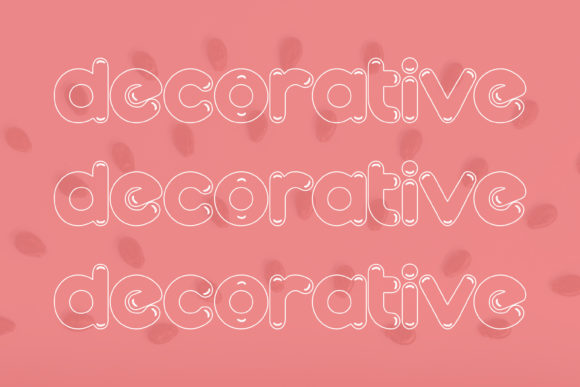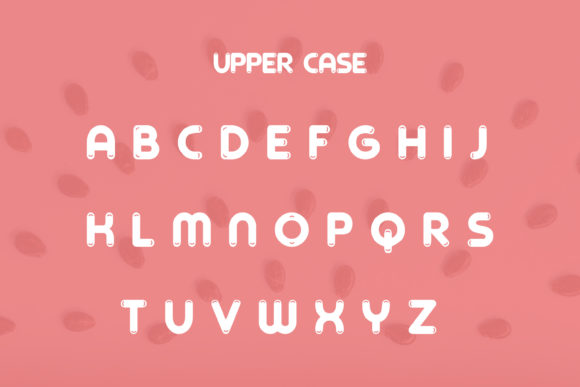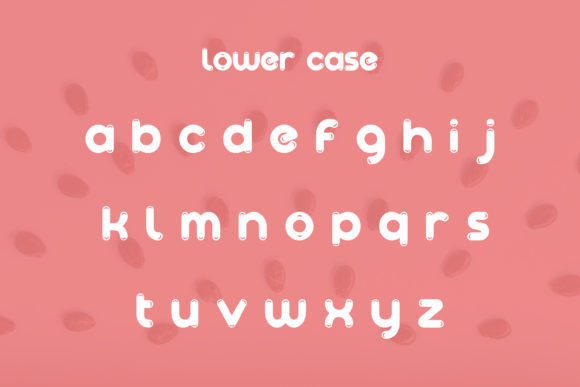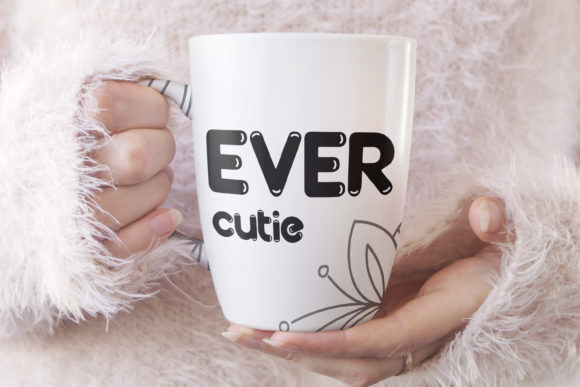
Cuscus Font: Add a Touch of Joy to Your Designs
Are you looking for a font that can add a playful and whimsical touch to your designs? Look no further than the Cuscus font! This cute and bubbly display font is perfect for a variety of projects, from cartoon-related designs to children’s games, quotes, titles, brand names, book covers, posters, and more.
What is Cuscus Font?
Cuscus is a modern display font that features rounded and smooth curves, giving it a friendly and approachable feel. The font is designed to be highly legible, making it perfect for use in a variety of contexts, from digital designs to print materials.
Characteristics of Cuscus Font
So, what makes Cuscus font so special? Here are some of its key characteristics:
- Cute and Bubbly: Cuscus font has a playful and whimsical feel that’s perfect for designs that require a touch of joy.
- Rounded and Smooth Curves: The font features rounded and smooth curves, giving it a friendly and approachable feel.
- Highly Legible: Cuscus font is designed to be highly legible, making it perfect for use in a variety of contexts.
- Versatile: This font can be used for a wide range of projects, from digital designs to print materials.
Use Cases for Cuscus Font
So, what can you use Cuscus font for? The possibilities are endless! Here are some ideas to get you started:
- Cartoon-Related Designs: Cuscus font is perfect for cartoon-related designs, such as character names, titles, and quotes.
- Children’s Games: This font is great for children’s games, such as puzzle titles, game names, and instructions.
- Quotes and Titles: Cuscus font is perfect for use in quotes and titles, adding a touch of joy and whimsy to your text.
- Brand Names: This font can be used to create unique and memorable brand names that stand out from the crowd.
- Book Covers: Cuscus font is great for book covers, adding a playful and eye-catching touch to your design.
- Posters: This font is perfect for posters, whether you’re creating a poster for a movie, event, or product launch.
Why Choose Cuscus Font?
So, why should you choose Cuscus font for your next project? Here are just a few reasons:
- Unique and Playful: Cuscus font is a unique and playful font that can add a touch of joy to your designs.
- Easily Readable: This font is highly legible, making it perfect for use in a variety of contexts.
- Versatile: Cuscus font can be used for a wide range of projects, from digital designs to print materials.
Tips for Using Cuscus Font
Here are a few tips for using Cuscus font in your designs:
- Use it for Headings: Cuscus font is perfect for use in headings and titles, where you want to make a bold statement.
- Pair it with Other Fonts: This font pairs well with other fonts, such as sans-serif fonts, to create a unique and interesting design.
- Experiment with Colors: Cuscus font looks great in a variety of colors, so don’t be afraid to experiment and find the perfect color for your design.
| Font Name | Cuscus Font |
| Author | Design Stag |
In conclusion, Cuscus font is a unique and playful font that can add a touch of joy to your designs. With its rounded and smooth curves, highly legible design, and versatile use cases, this font is perfect for a wide range of projects. Whether you’re a designer, crafter, or DIY enthusiast, Cuscus font is a great choice for your next project.